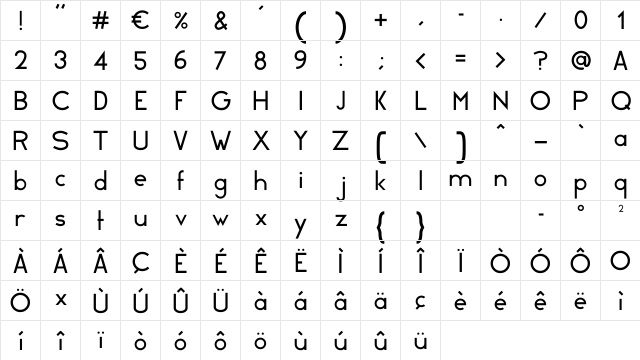
mimich Medium
Design Context for mimich Typeface
mimich takes a measured approach to typography — its balanced proportions and neutral character make it a reliable workhorse for both digital and print work.
Pro Tip: Pair mimich with a font of contrasting weight or personality to build a more expressive typographic hierarchy.